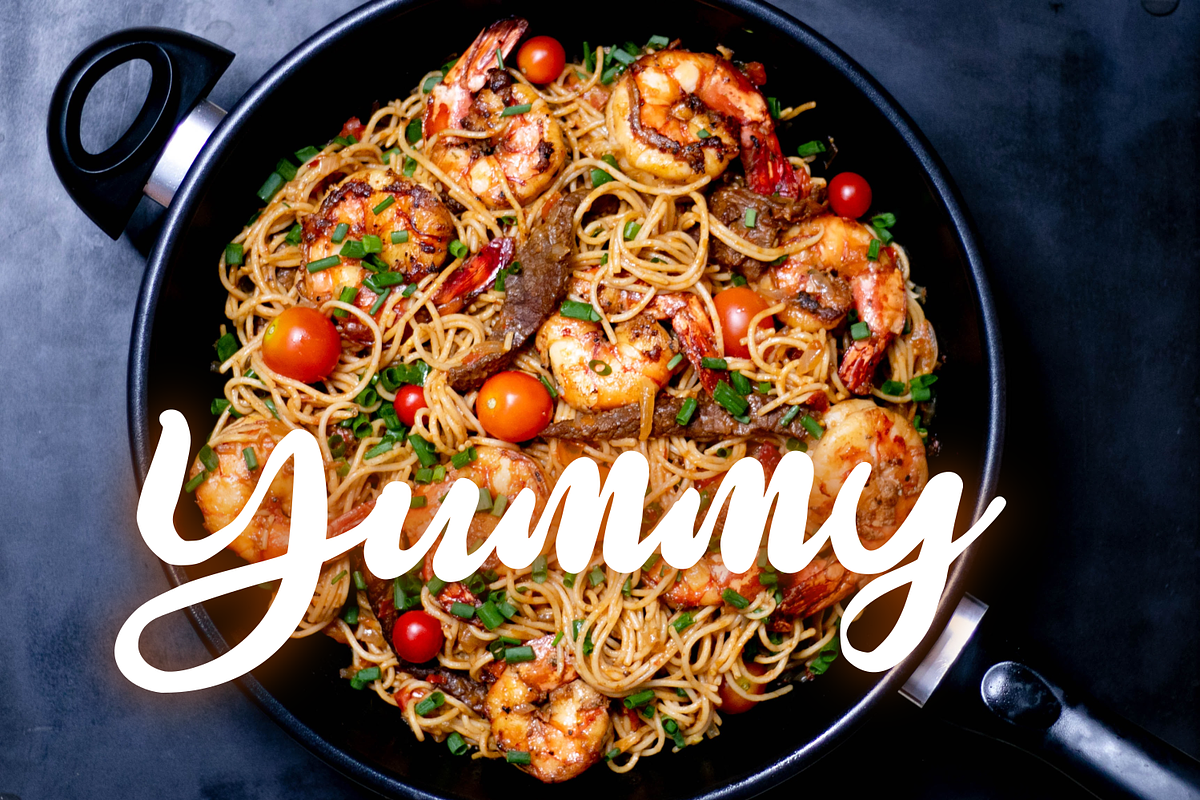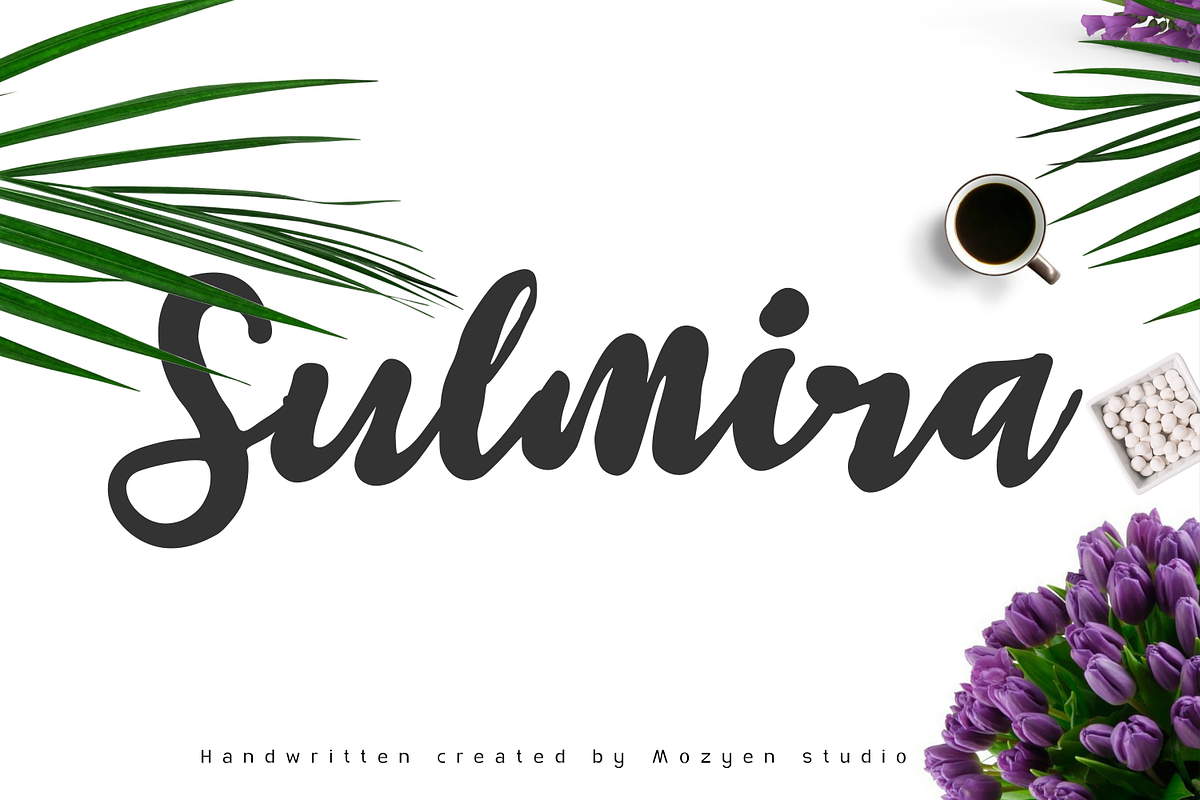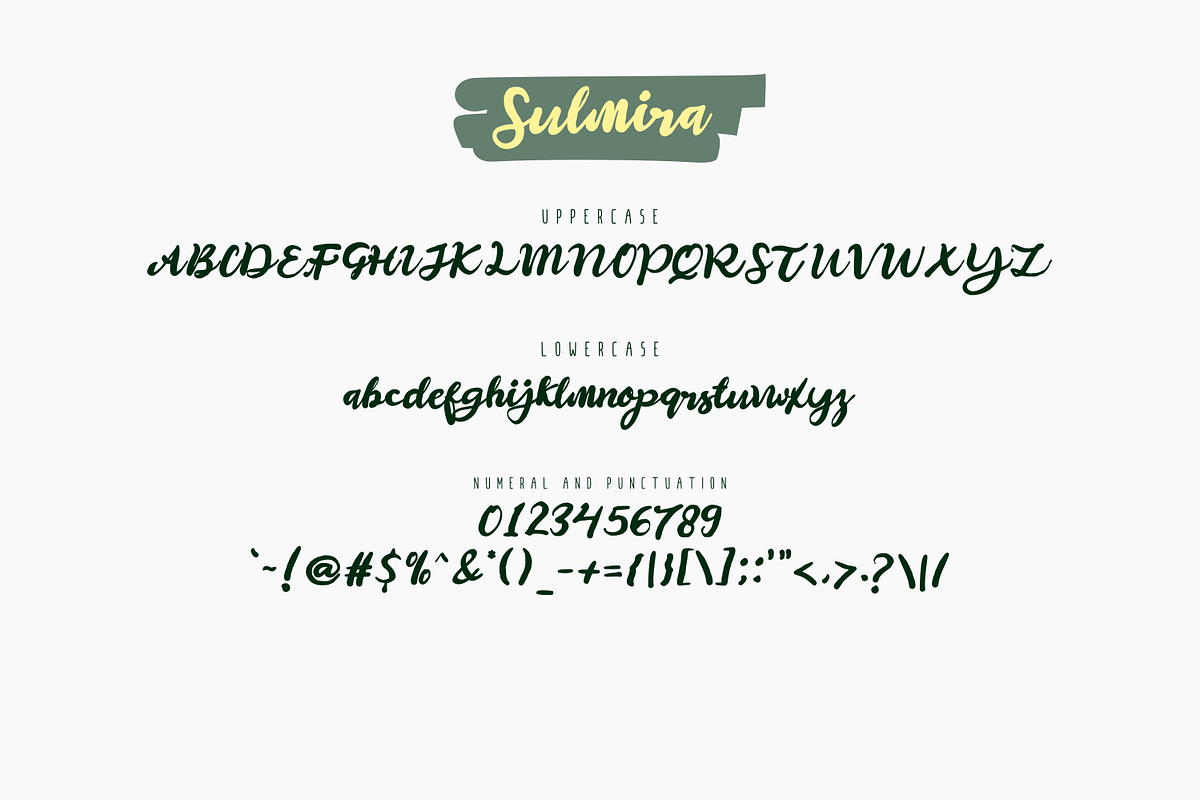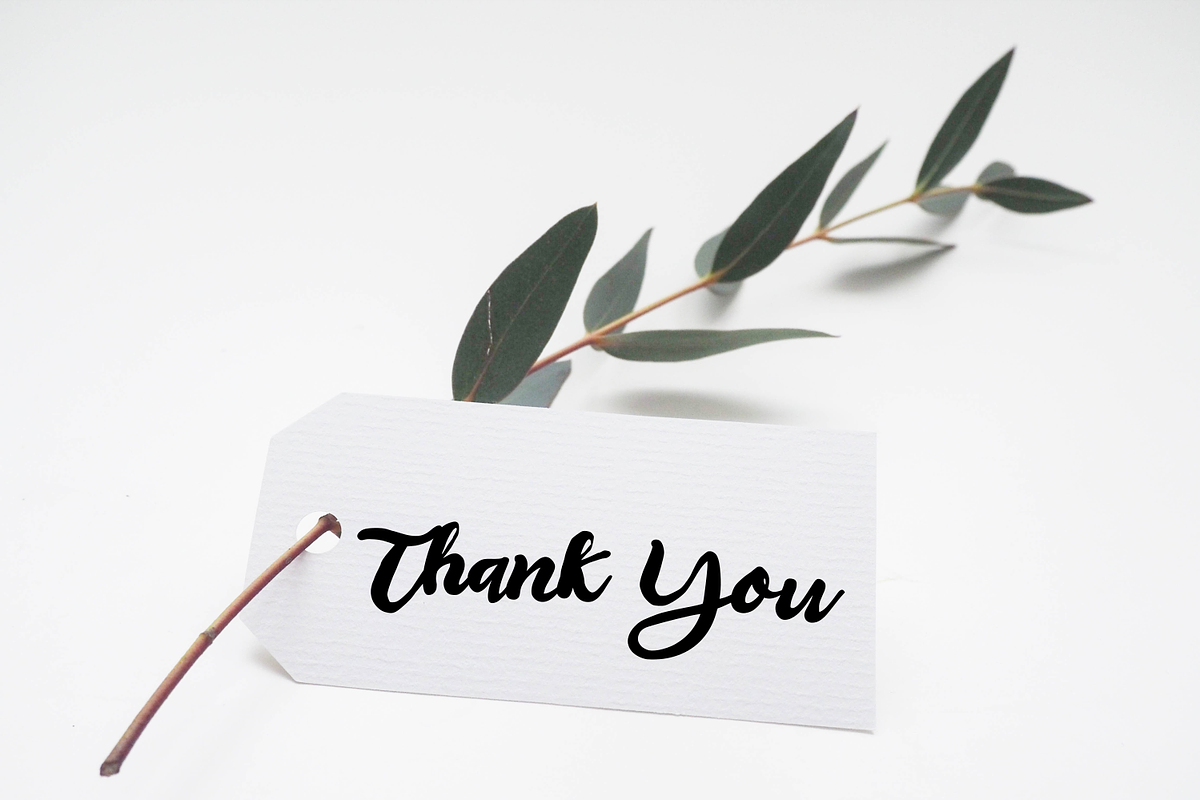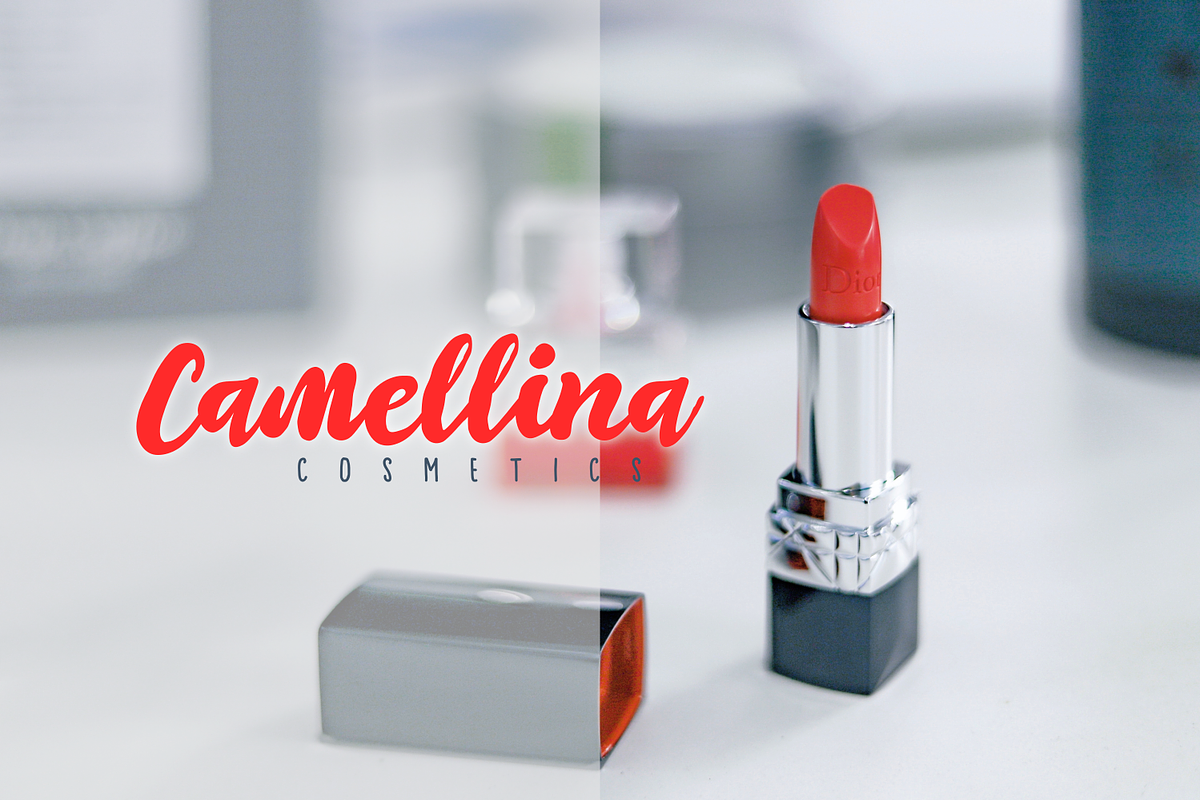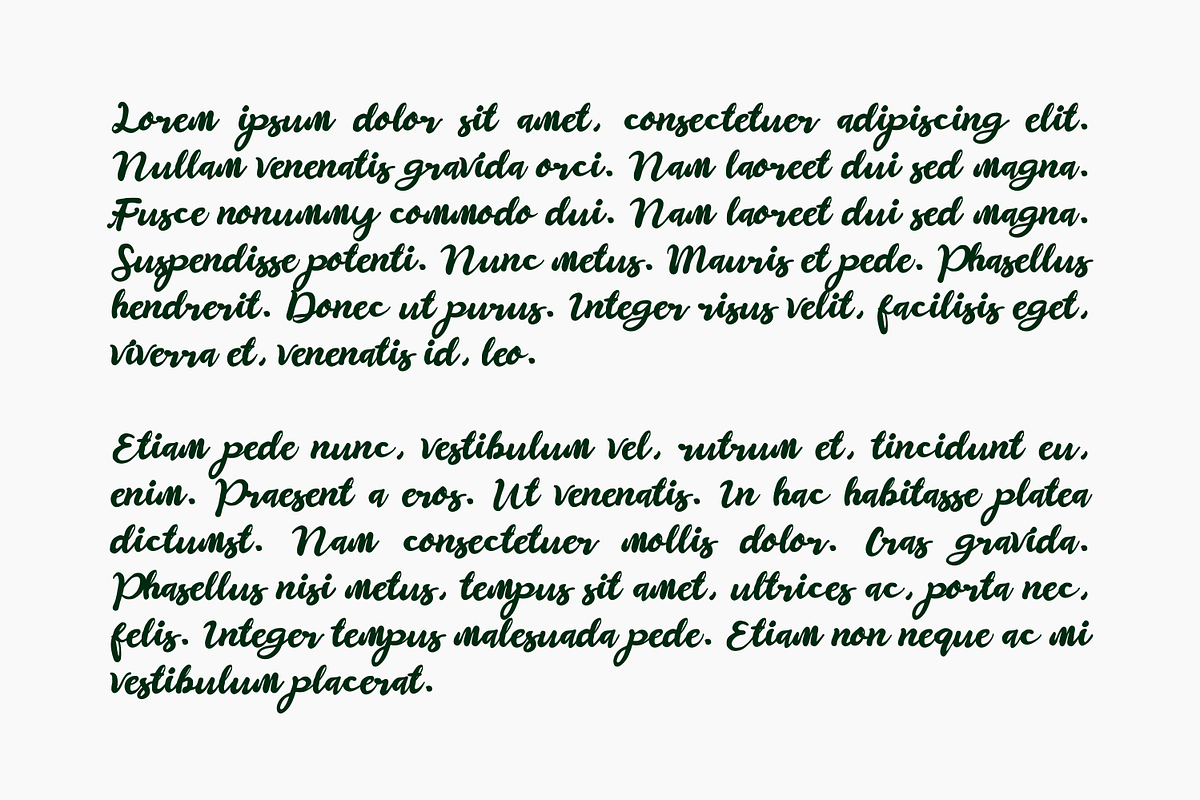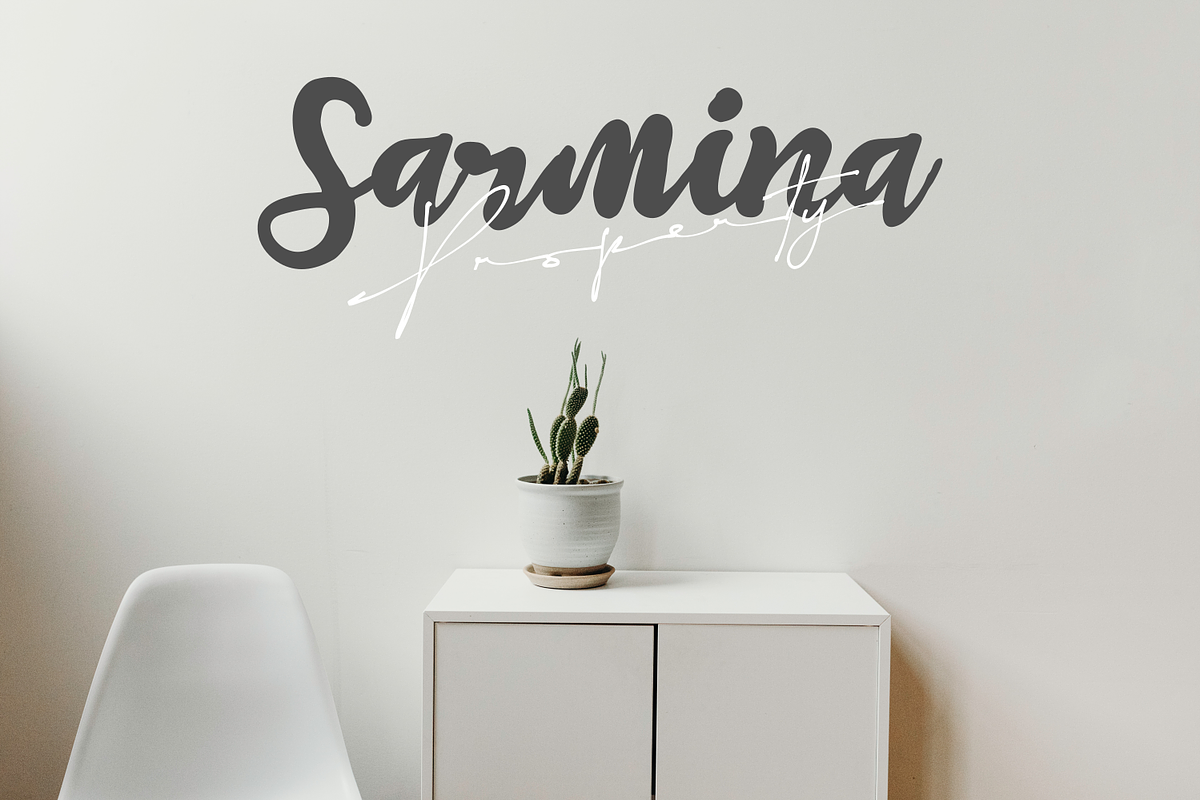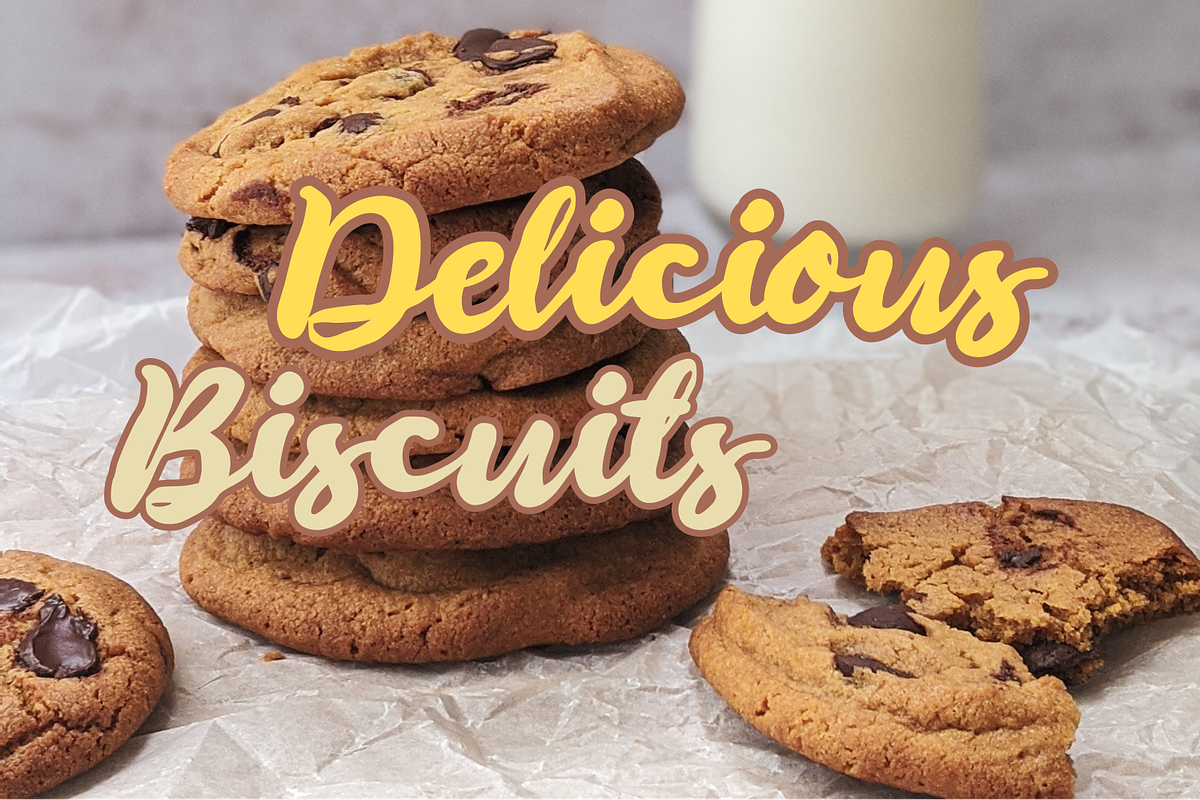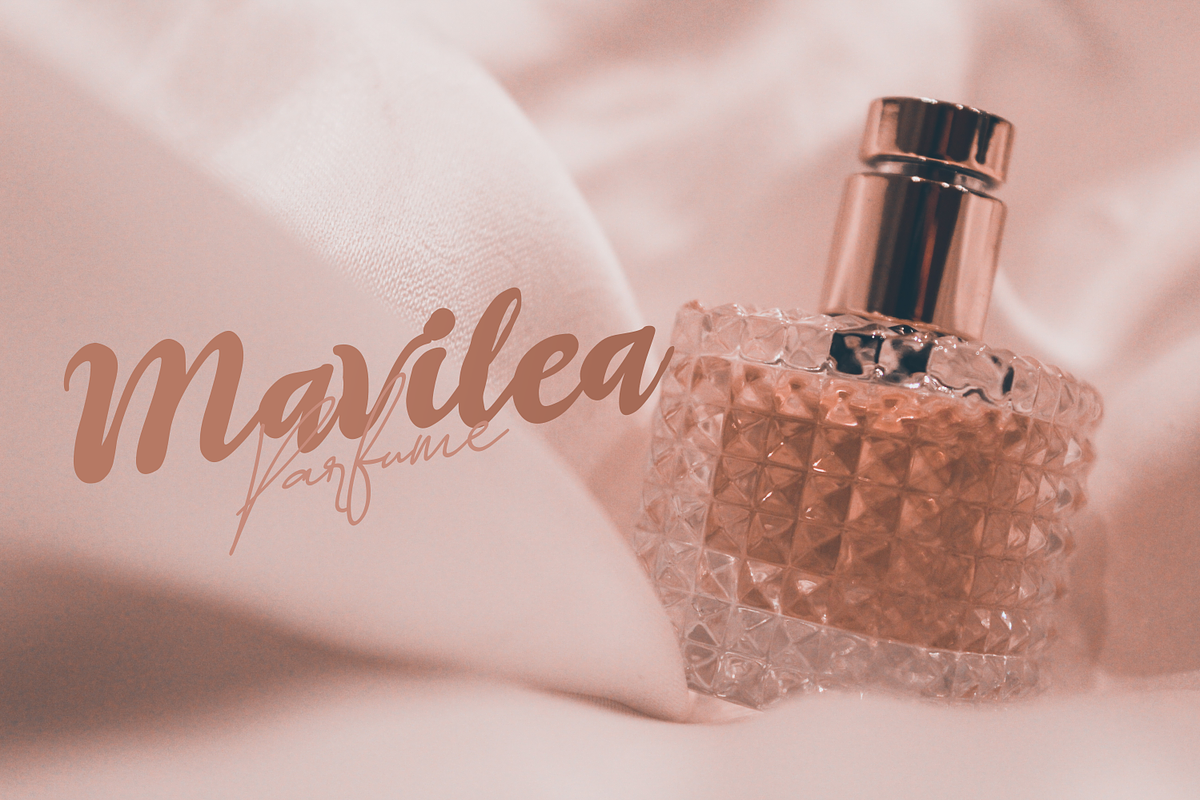
Sulmira
Sulmira is a cool, whimsical and brushed handwritten font. Thick lettered yet cute, this font will make each of your designs look lovely and neat. Fall in love with its incredibly versatile style and use it to create spectacular designs!